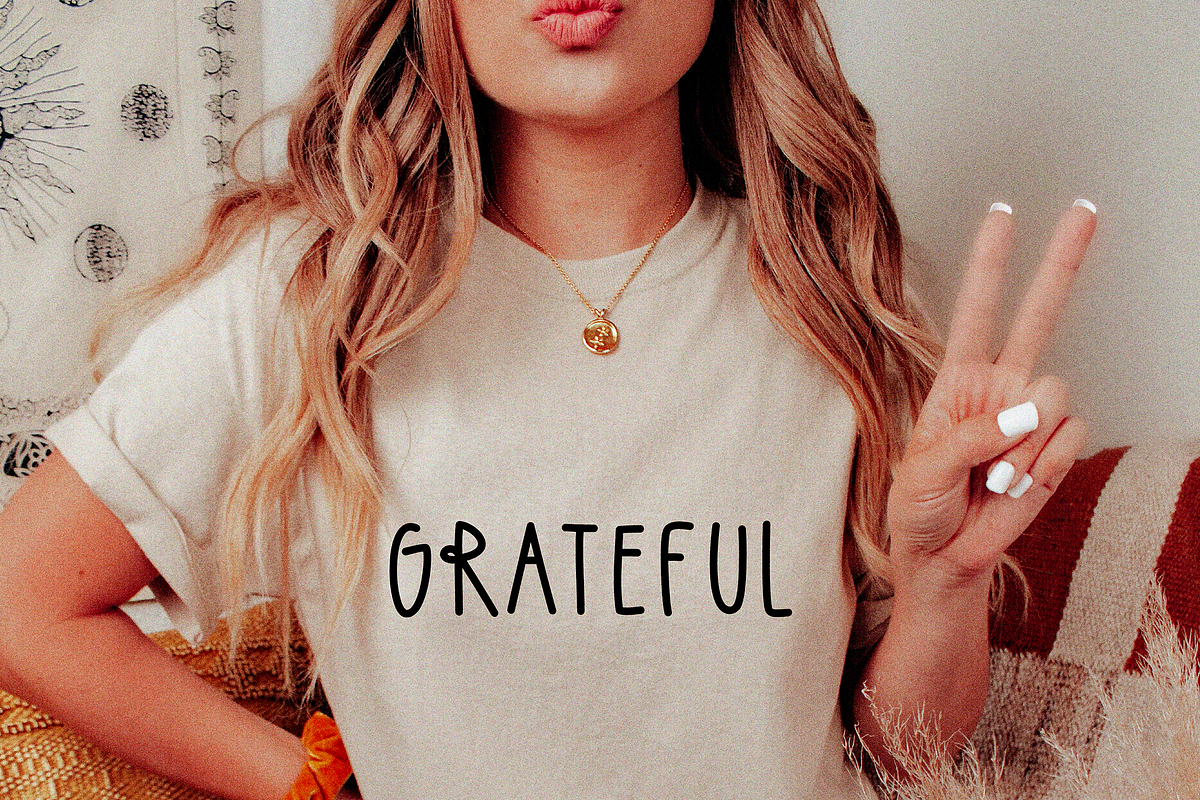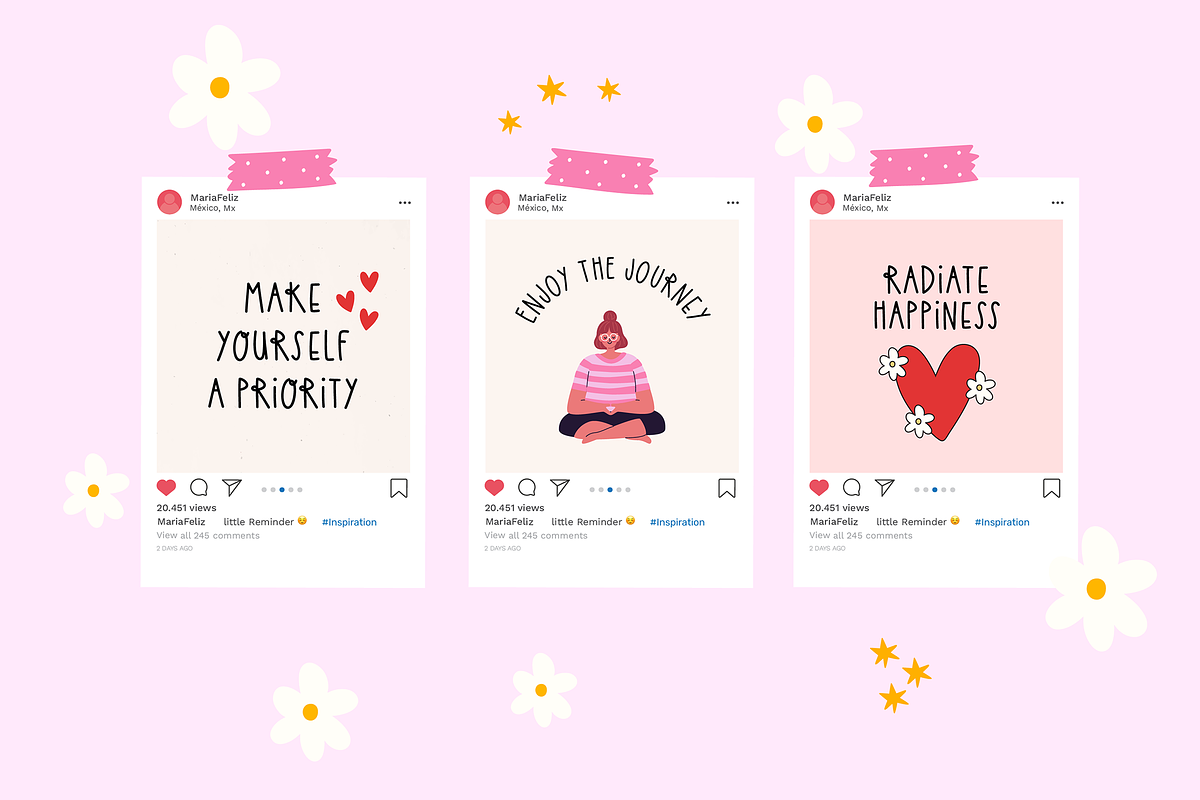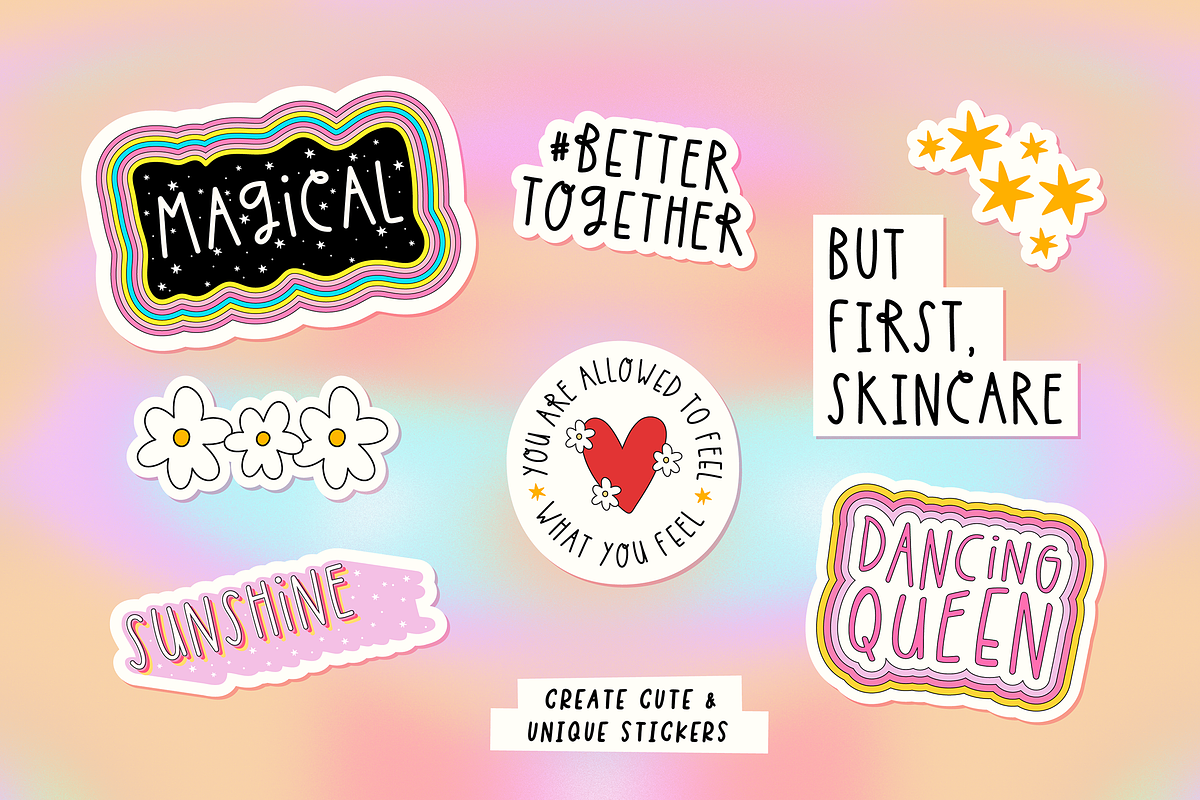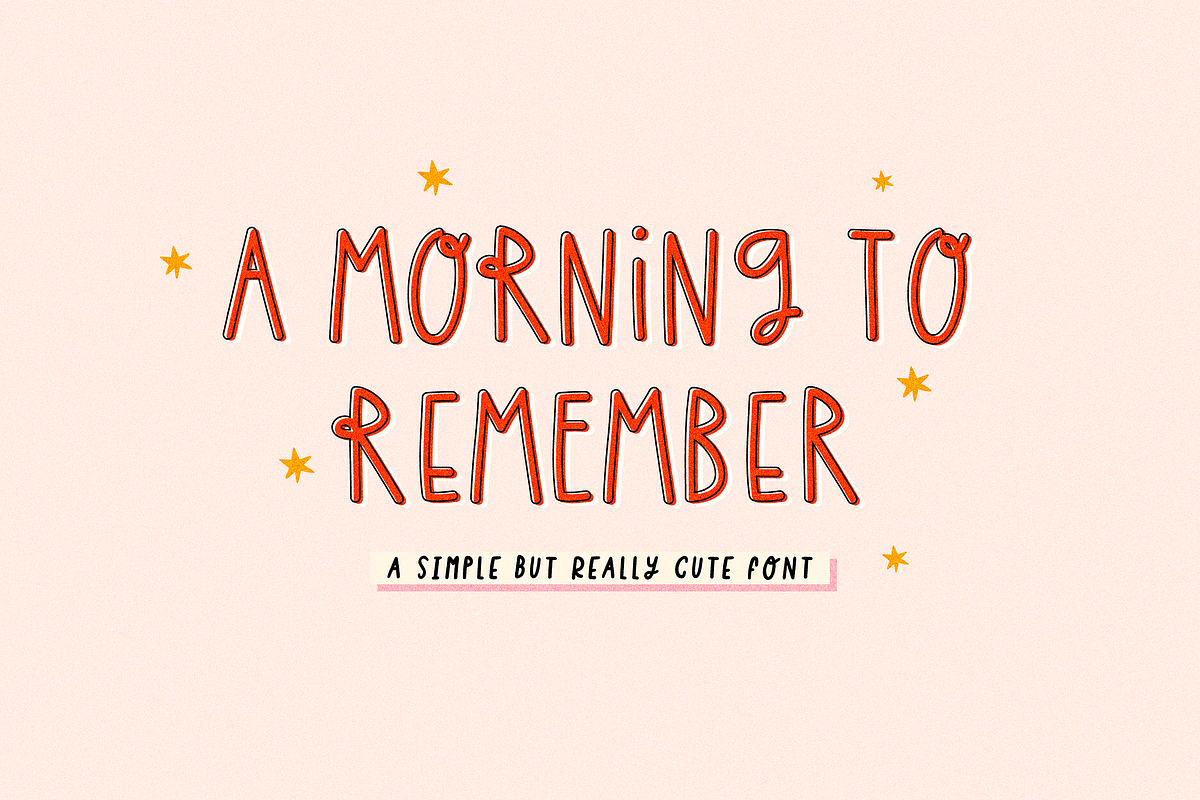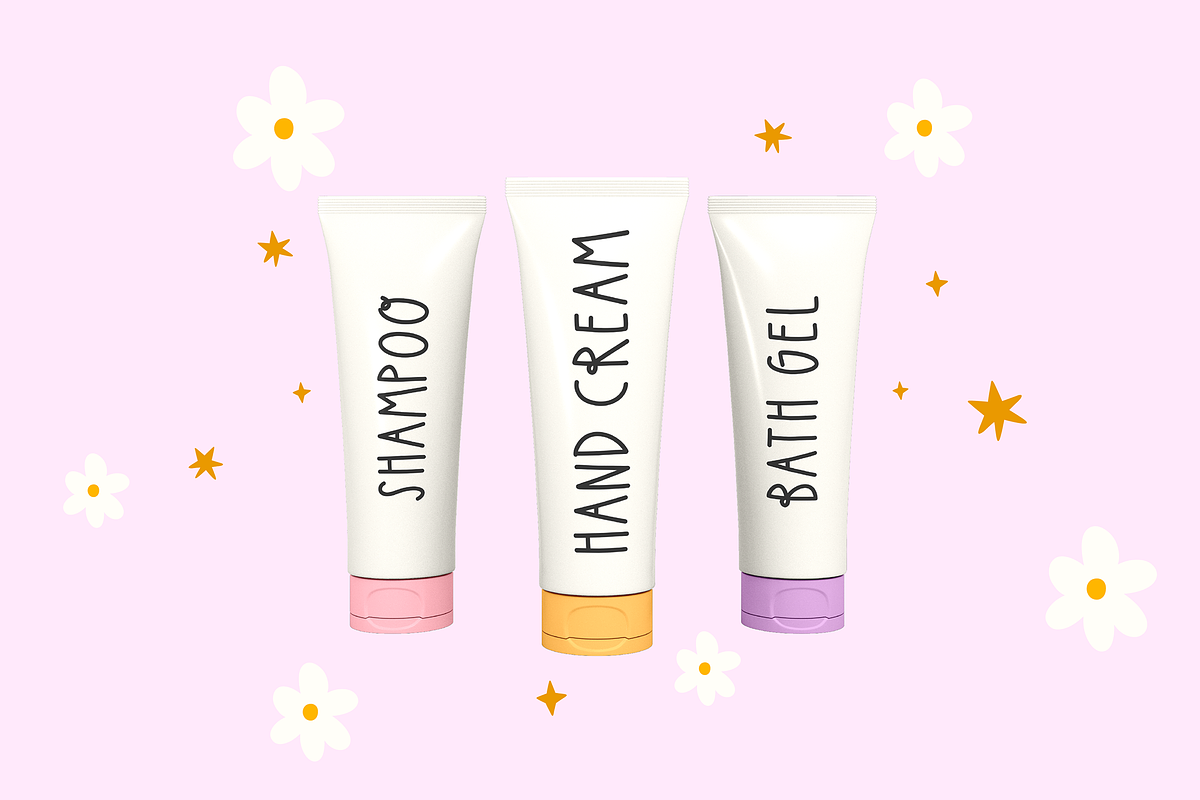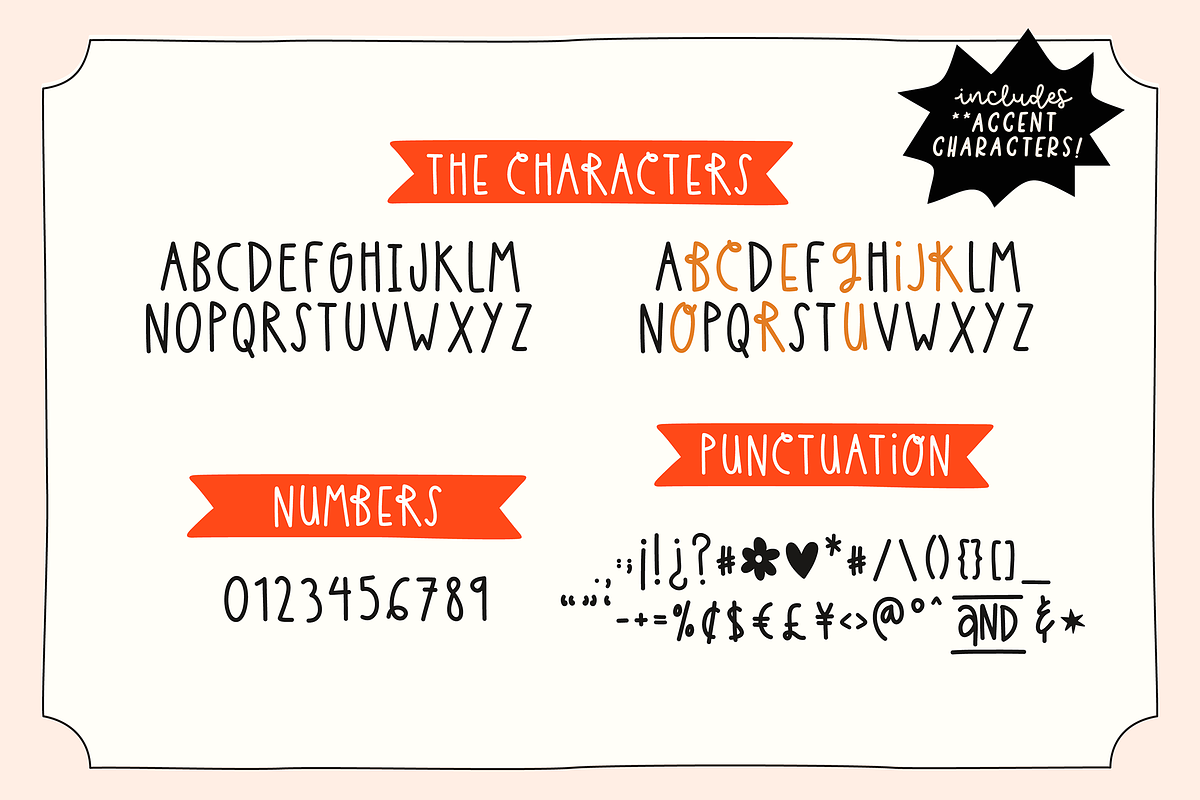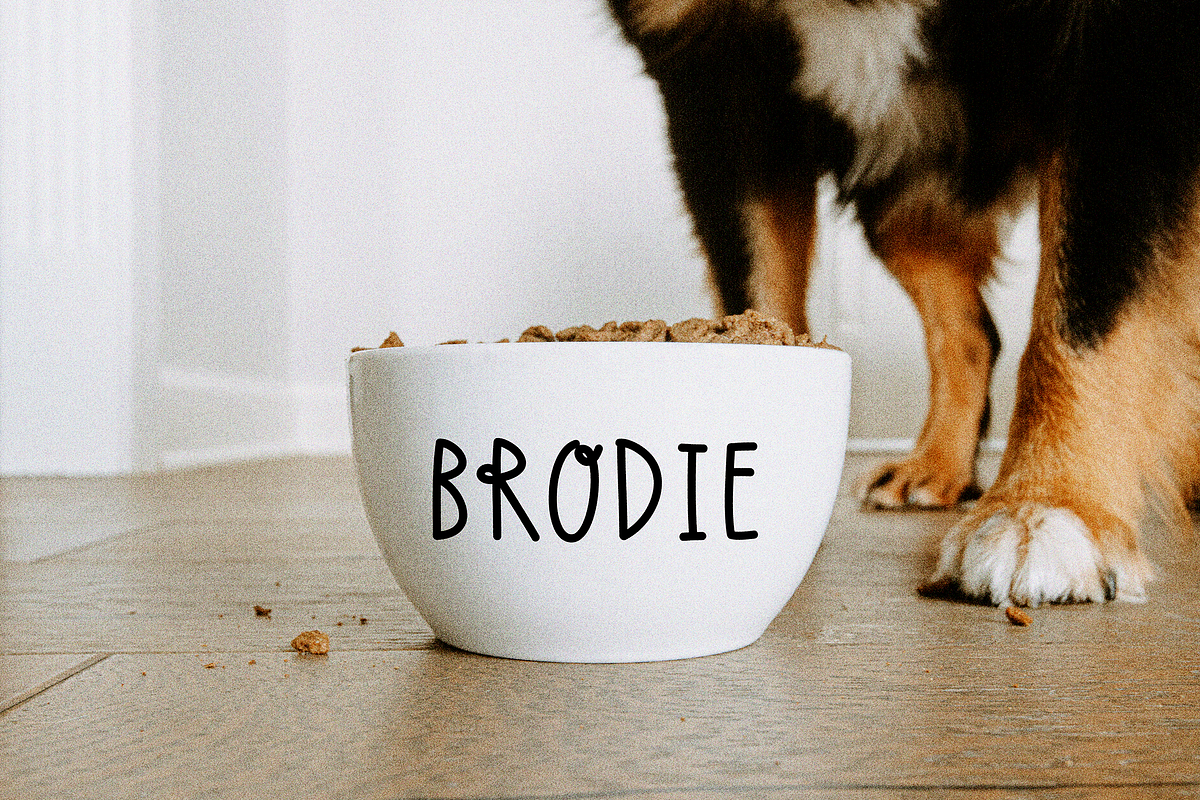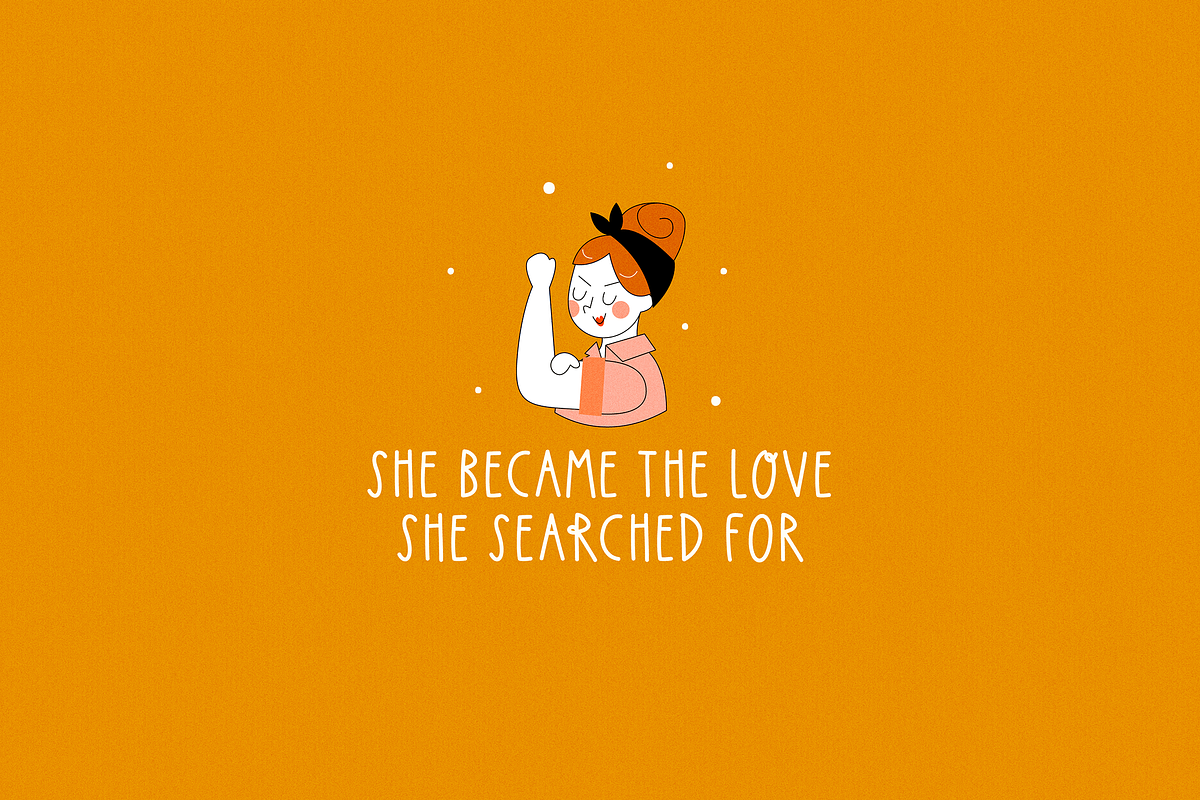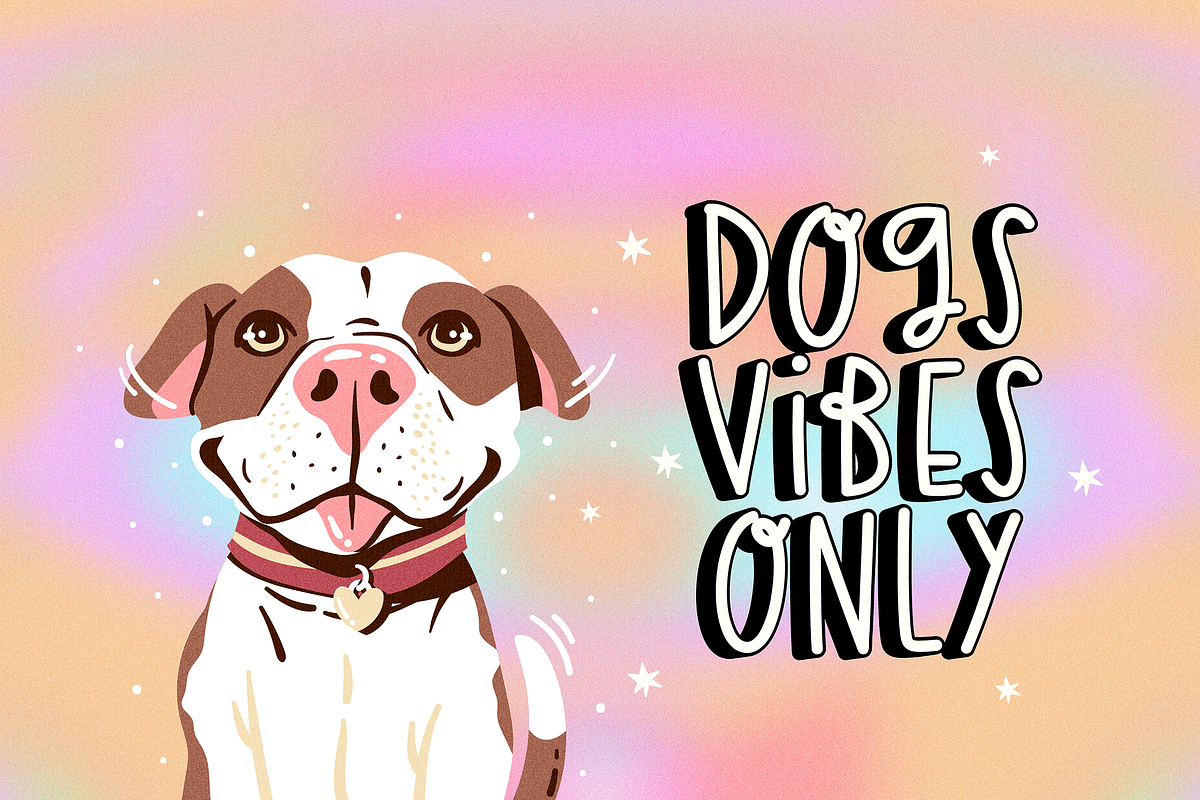
A MORNING TO REMEMBER
MORNING TO REMEMBER is a cute and simple but fun hand-drawn font.
Have fun with this font! Create awesome designs and products like t-shirts, stickers, and more! You can even easily create graphic art for your social media!
✷ MIX THE UPPERCASE WITH THE LOWERCASE CHARACTERS TO GET A UNIQUE RESULT IN YOUR DESIGNS
✷ Use the 5 symbols included to make cute compositions.
- Bullet symbol • – Heart
- Period centered symbol · – Flower
- Bar symbol | - star
- Copyright symbol © - and
- Registered symbol ® - & (alternate)